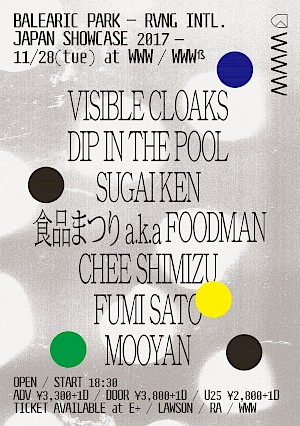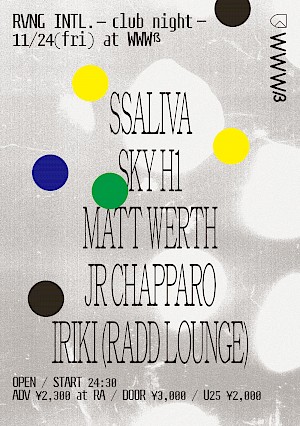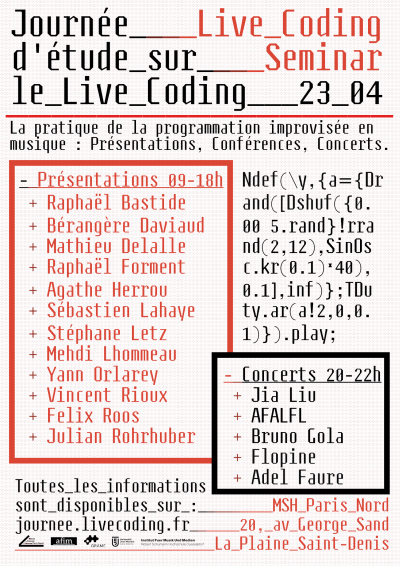
Steps Mono
Steps Mono was created by Raphaël Bastide and Jean-Baptiste Morizot for the french magazine Étapes: to demonstrate a collaborative design on the same font. View the magazine.